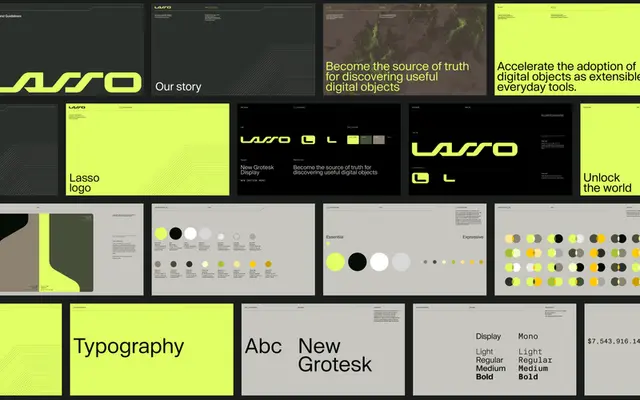
New Grotesk Mono
A four-weight monospaced companion to the New Grotesk family, drawing on early 20th century industrial design for a functional fixed-width form.
Designed by Sam Powell and published in March 2021, New Grotesk Mono extends the New Grotesk family into monospaced territory. The four weights — Light, Regular, Medium and Bold — share the industrial character of the parent family and cover a broad range of Latin languages. It suits technical documentation, UI work and any setting where the grotesque warmth of New Grotesk is wanted at a fixed pitch.
Explicitly classified as monospaced by the foundry; designed as a companion to the New Grotesk grotesque family, carrying industrial and early 20th century grotesque influences into a fixed-width format.